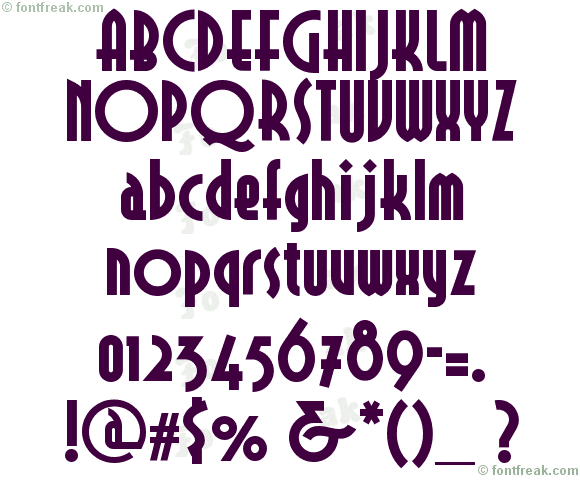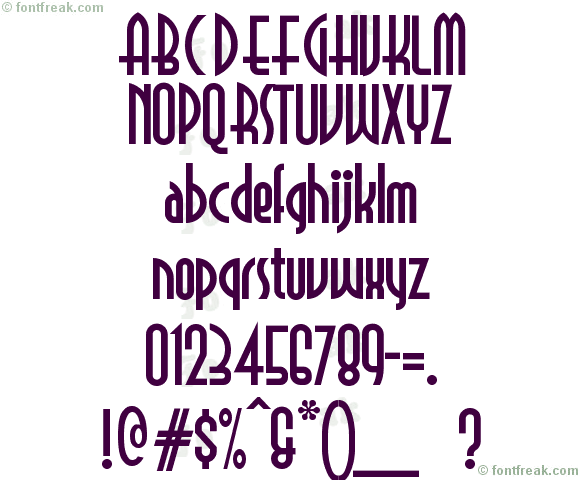
Selznick Remix NF
SelznickNormal
Selznick Remix NF is a striking display font designed by Nick Curtis that brings a unique flair to any project. This font falls within the decorative category, characterized by its bold and eye-catching letterforms that command attention. The stroke weight is substantial, providing a strong visual presence, and the overall design features a playful yet sophisticated aesthetic. The letters are well-spaced, ensuring readability while still maintaining a sense of artistic flair. The font’s distinct characteristics make it a versatile choice for various applications.
The Selznick Remix NF font is perfect for wedding invitations, where its unique style can add a touch of elegance. It also works well on movie posters, lending an air of excitement and drama that captures the viewer's attention. Restaurant menus can benefit from its boldness, allowing dish names to stand out and entice diners. Additionally, this font is well-suited for branding materials, helping small businesses forge a memorable identity. Graphic designers and content creators will find it an invaluable tool for projects that require a dynamic and distinctive typeface.
What sets Selznick Remix NF apart is its ability to blend creativity with functionality. While it captures a whimsical essence, it remains highly legible, making it suitable for both print and digital formats. This balance allows the font to be utilized across various media without sacrificing clarity or style. For those looking to enhance their design projects, the Selznick Remix NF font free download offers an opportunity to elevate visual communication with a touch of artistic sophistication. Embrace this font for your next creative endeavor, and watch it transform your work into something truly special.